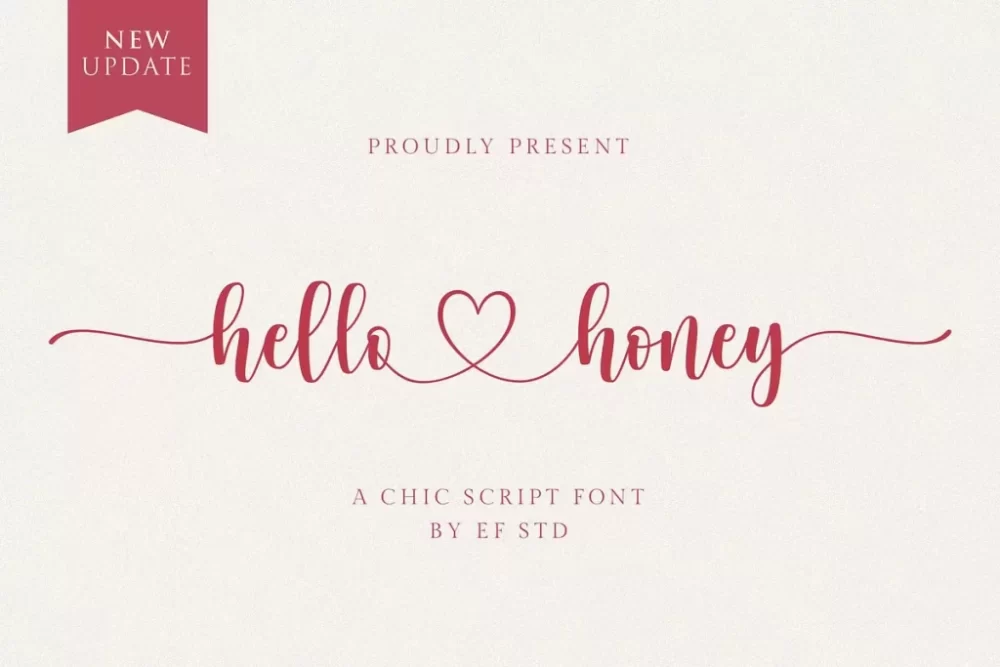
Hello Honey Font
Hello Honey is a beautiful chic script font. It is suitable for branding, wedding invitations, and other romantic projects. All of features and special characters of this font are included in one file.
Includes:
• Lowercase beginning and ending swash
• Uppercase beginning swash
• Connecting heart
• Initials
• Designed by: Ef Studio